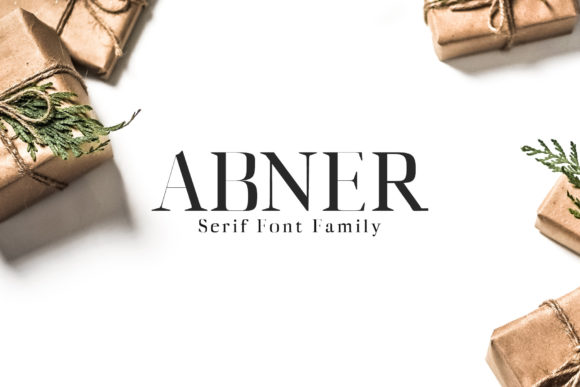
The Ultimate Design Game-Changer: Abner Font
I’ll never forget the moment I stumbled upon the Abner font. I was working on a project for a client who needed a bold, eye-catching title for their branding campaign. I had spent hours scouring through font libraries, but nothing seemed quite right. That was until I discovered Abner – a bold and assertive serif font that instantly caught my attention. In this article, I’ll share my experience with Abner, its features, and how to make the most of it in your designs.
My Honest Review of Abner Font
As a designer, I’m always on the lookout for fonts that can elevate my work. Abner has quickly become one of my go-to fonts, and here’s why:
- ✨ Bold and assertive: Abner makes a statement with its confident and commanding presence.
- ✅ Versatile: This font works beautifully for headings, titles, and even body text.
- 💡 Unique character: Abner’s distinctive serif style sets it apart from other fonts.
However, no font is perfect, and Abner has a few quirks:
- 🤔 Limited ligatures: While Abner has some great ligatures, it’s not as extensive as some other fonts.
- ⚠️ Not ideal for small text: Due to its bold nature, Abner can be overwhelming for small text sizes.
- Experiment with OpenType features like Stylistic Alternates to add some flair to your text.
The Story Behind Abner Font
Abner was designed by a team of typographers who aimed to create a bold and assertive serif font. Inspired by classic typography, they crafted Abner to be a versatile and attention-grabbing font. While the designer’s story might be fictional, the font’s impact is real.
| What makes Abner font unique? | Abner’s distinctive serif style and bold nature make it stand out from other fonts. |
| Is Abner suitable for body text? | While Abner can be used for body text, it’s more suited for headings and titles due to its bold nature. |